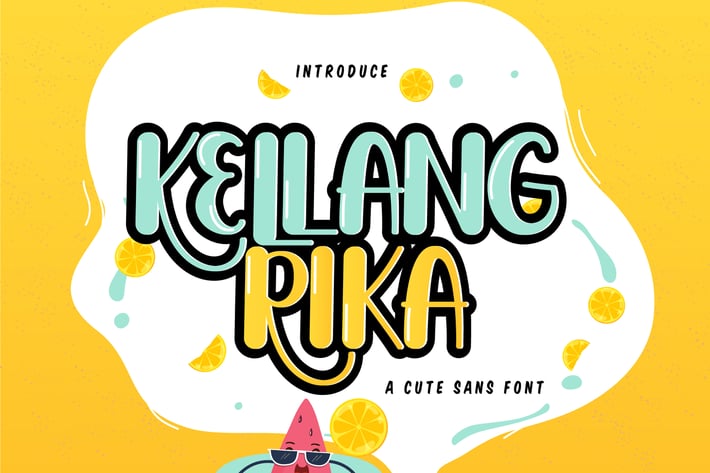
Kellang Rika | Cute Sans Font
Kellang Rika | Cute Sans Font with a sans style, So beautiful on invitation like greeting cards, branding materials, business cards, quotes, posters, and more!